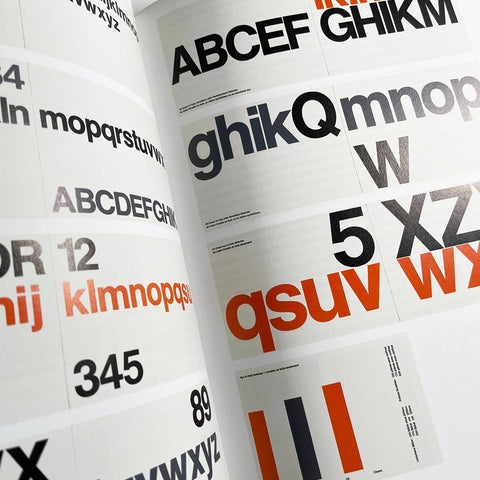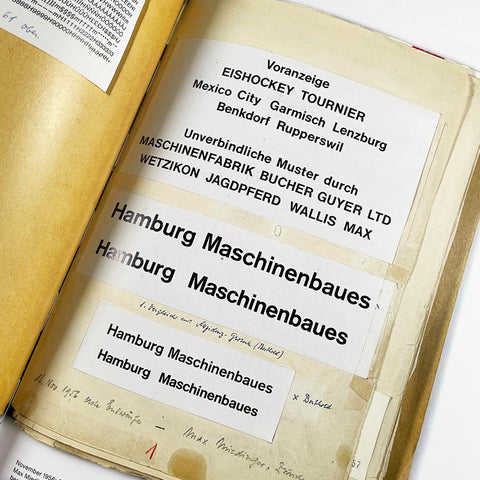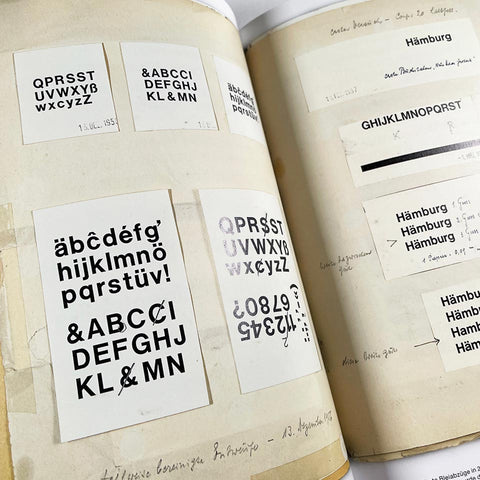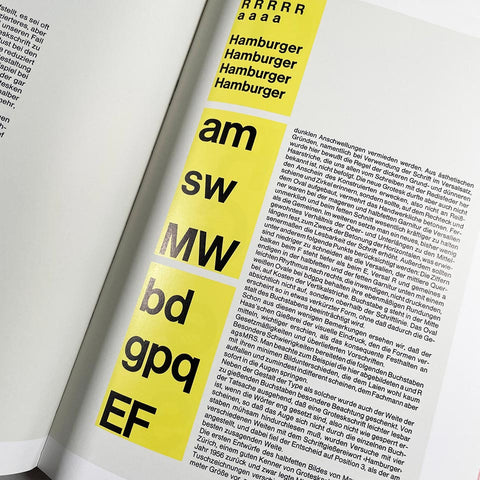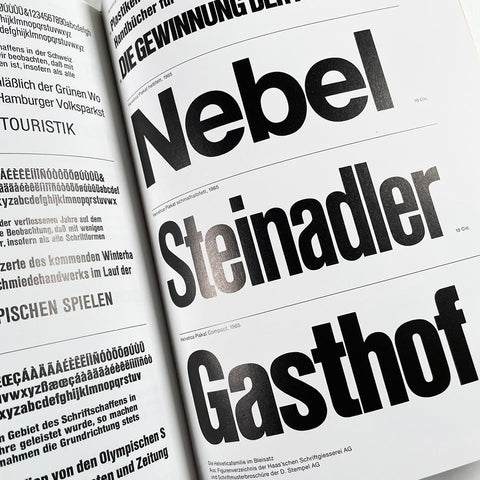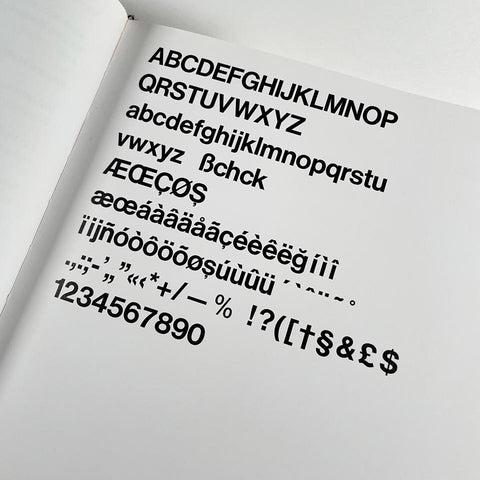
Helvetica Forever: Story of a Typeface
Designed in 1957, Helvetica is an icon of Swiss graphic design, which was a model of sober, functional communication throughout the world in the 1950s and 60s. The balanced and neutral appearance of Helvetica forgoes a high degree of expressivity—a quality for which it is both criticized and admired. This polarization has helped to gain it unparalleled notoriety. This book retraces Helvetica’s first fifty years, compares it to the well-known sans serif types of the twentieth century, and examines the phenomenon of its unparalleled spread. The documentation is based on the achievements and archive of Alfred Hoffmann, the former director of the Haas’sche Schriftgiesserei, where, in conjunction with Max Miedinger and Eduard Hoffmann, Helvetica was developed. Numerous illustrations show a multitude of ways the font has been used in five decades from a wide variety of fields—from signal design to party flyers. A good thing to have around.